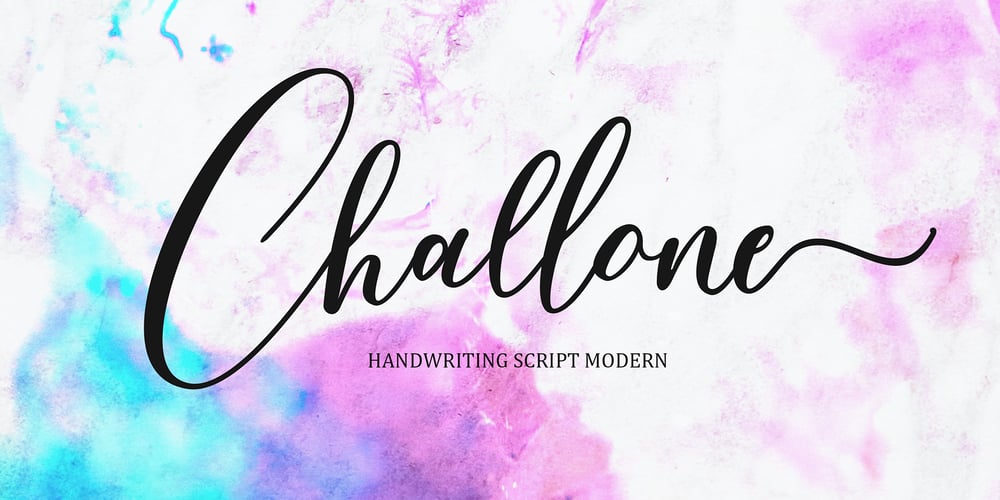
Shallone Script Font Family was designed by Afri Giani and published by Gian Studio. Shallone Script contains 1 styles and family package options. Introducing the new Shallone Script Model which you can get now! the script has been given a combination of fantasy and handwritten ink. This font will look beautiful on all designs, Wedding designs, branding materials, blog titles, quotes and invitations, business cards.Open Type includes:- Alternate style- Set style- Ligature- SWASHTo enable the OpenType Stylistic alternative, you need a program that supports OpenType features such as Adobe Illustrator CS, Adobe Indesign & CorelDraw X6-X7, Microsoft Word 2010 or later.There are additional ways to access the alternative/swash, using the Character Map (Windows), Nexus Fonts (Windows), Font Book (Mac) or a software program such as PopChar (for Mac and Window).This font has provided PUA unicode (custom code font).